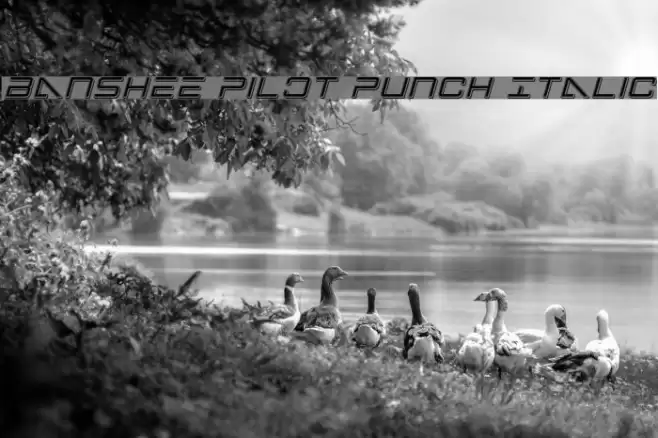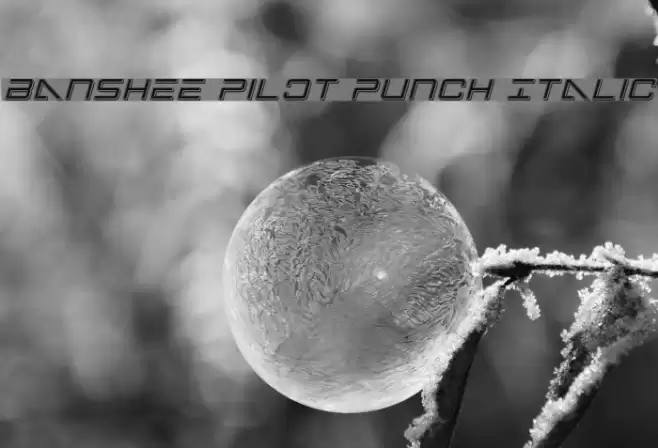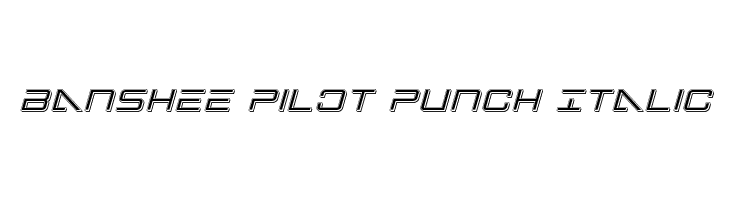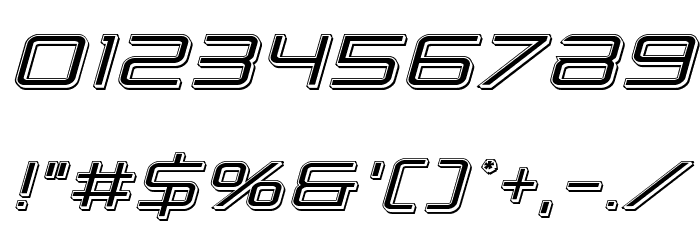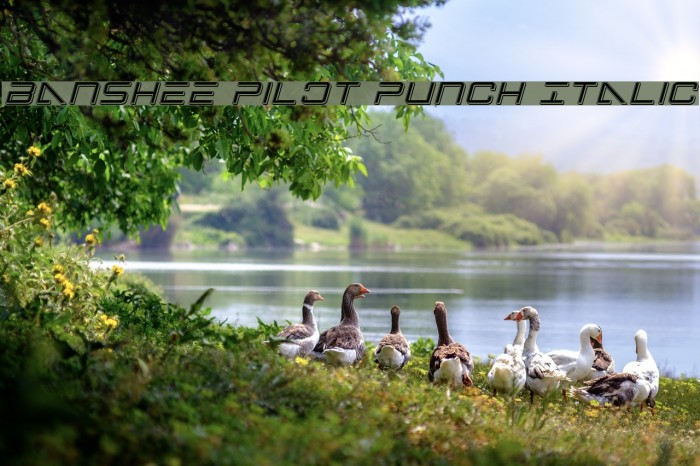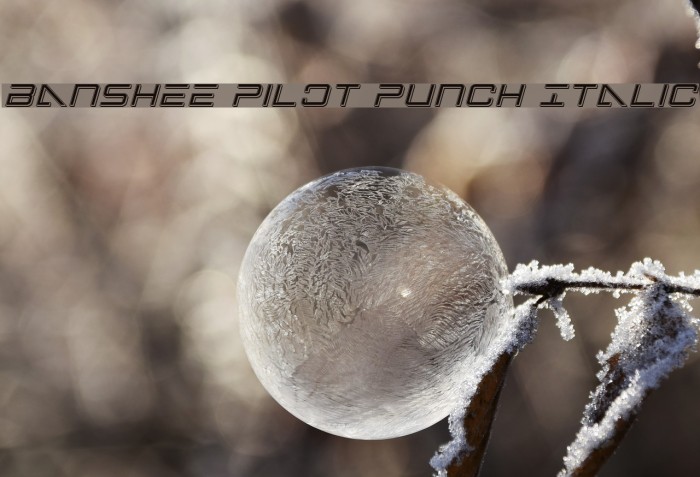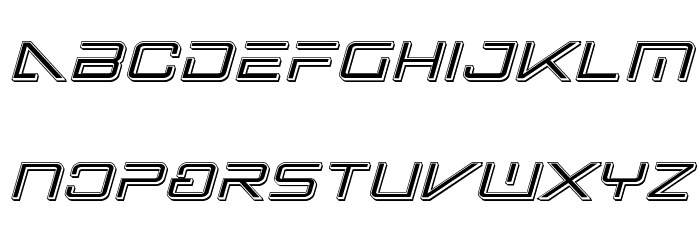
Banshee Pilot Punch Italic Font
Banshee Pilot Punch Italic Description
This font features a futuristic and dynamic design with a distinct italic slant, giving it a sense of motion and speed. The characters are outlined with a double line, creating a bold and striking appearance. The geometric shapes and sharp angles contribute to its modern and edgy style, making it stand out in any design. The uppercase and lowercase letters maintain a consistent style, while the numbers and special characters complement the overall aesthetic. This font is ideal for projects that require a contemporary and high-tech look.
A futuristic italic font with bold outlines and geometric shapes from Sci-fi fonts.
- Font: Banshee Pilot Punch Italic
- Proposed Projects: Ideal for sci-fi themed designs, technology branding, video game titles, and modern posters.